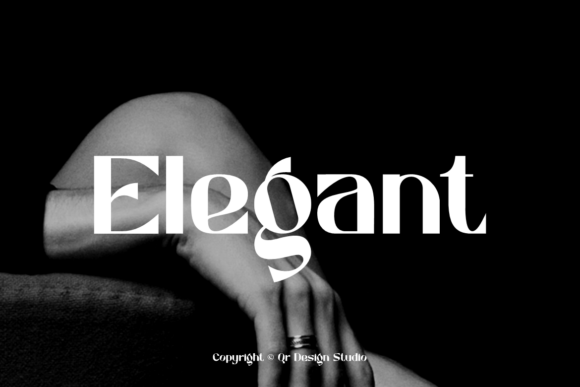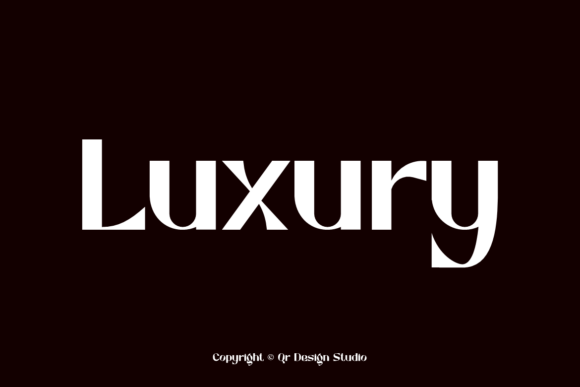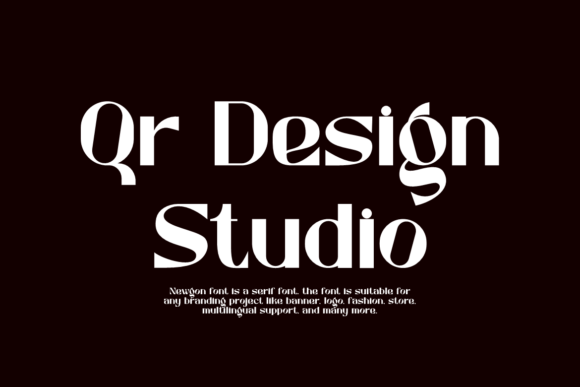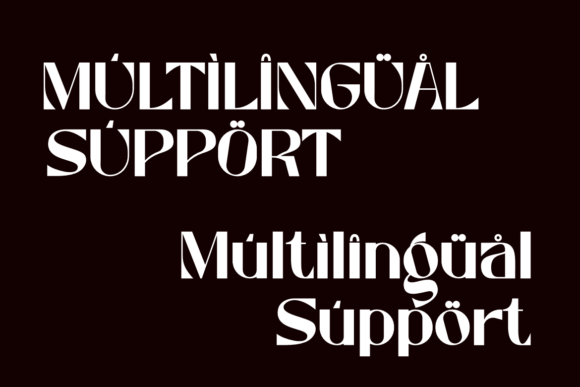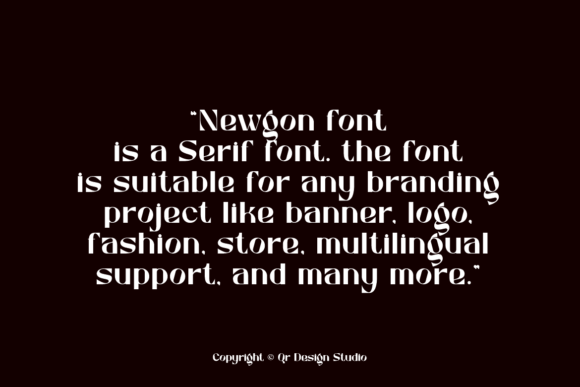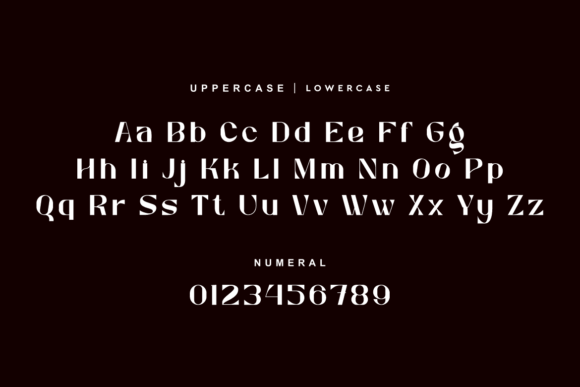
Introduction to Newgon Font Font
Fonts play a crucial role in design, and the Newgon Font font is a typeface that brings both character and versatility to any project. Whether you’re working on a branding project, a website, or a print design, the Newgon Font font offers a unique style that can elevate your work.
Newgon is a sleek, modern serif font with an elegant twist and high-fashion flair.
Its unique cuts and bold contrast give it a refined presence that’s perfect for luxury branding, editorial design, and upscale packaging Newgon is both sharp and sensual—perfect for brands that want to look effortlessly stylish.
Key Features of Newgon Font Font
Why Choose Newgon Font Font?
The Newgon Font font is more than just a typeface – it’s a design tool that helps you communicate your message with style and clarity. Its unique character set and versatile design make it suitable for a wide range of applications, from elegant invitations to bold headlines.
With its carefully crafted letterforms and balanced proportions, the Newgon Font font ensures readability and visual appeal across all mediums.
What makes Newgon Font font special?
The Newgon Font font stands out with its unique design, exceptional readability, and versatility across various design applications.